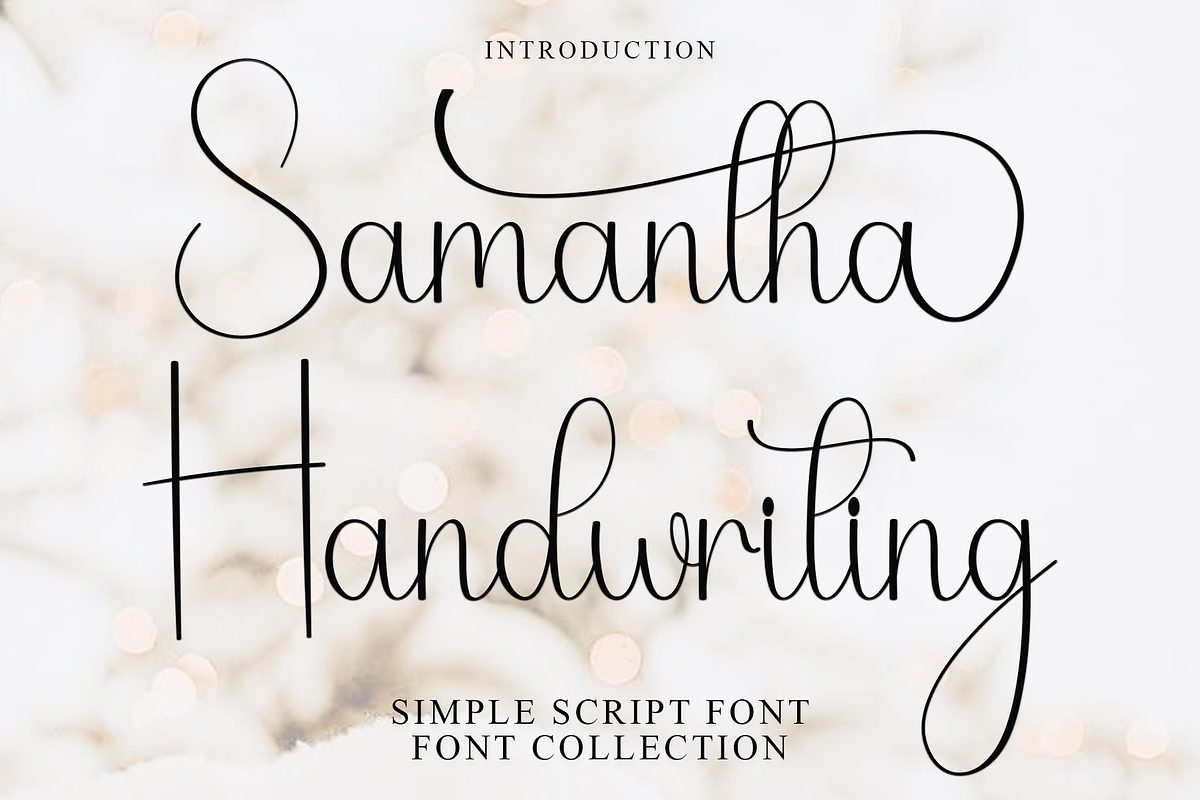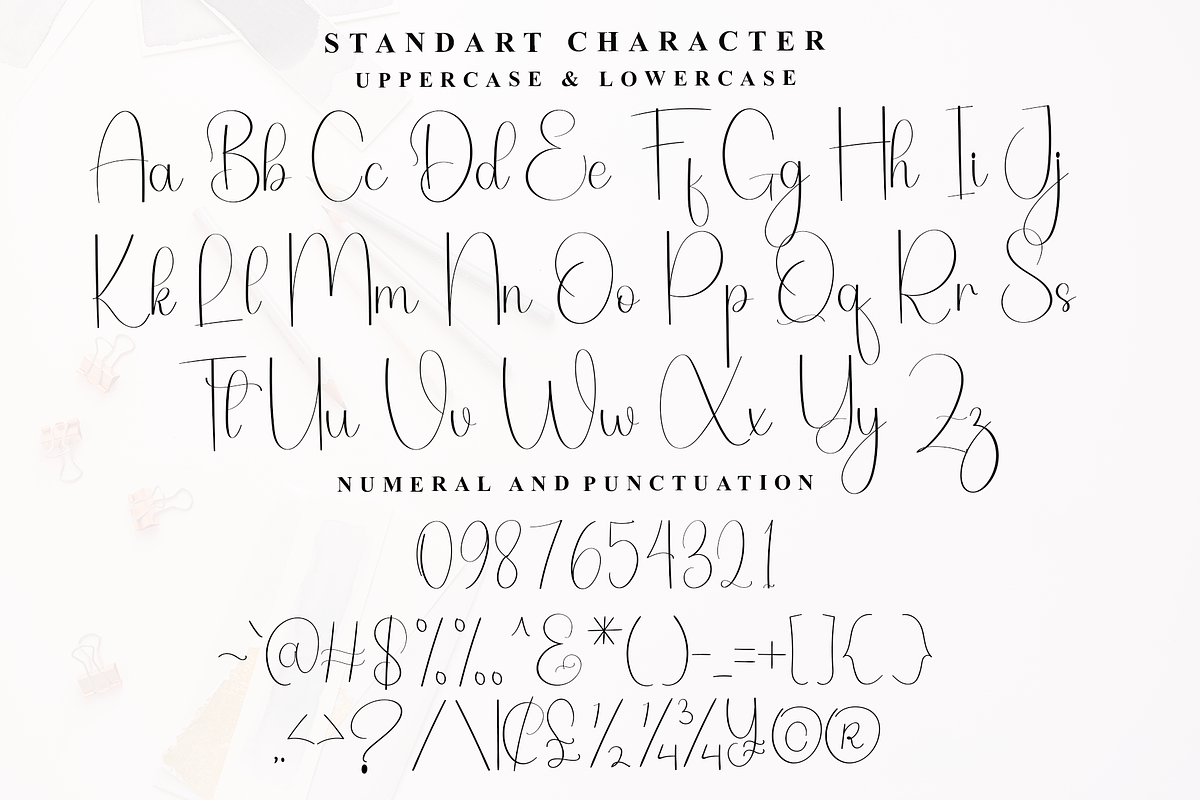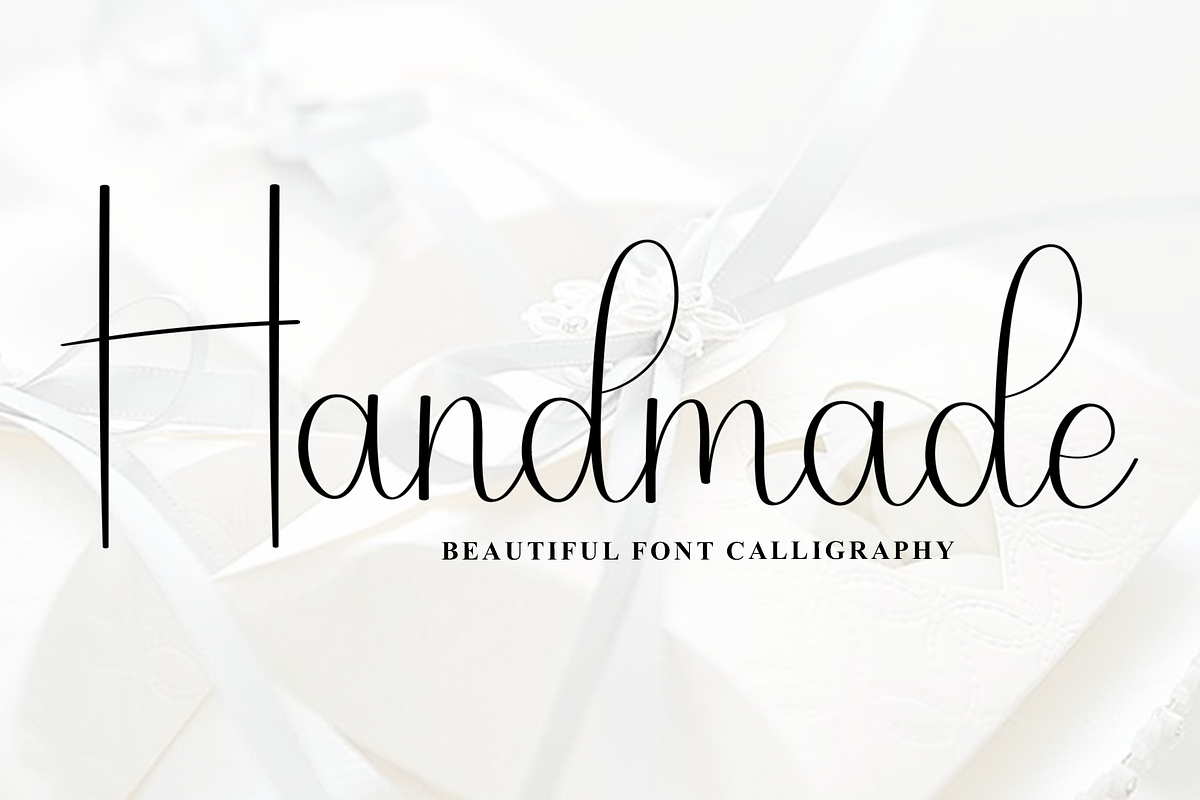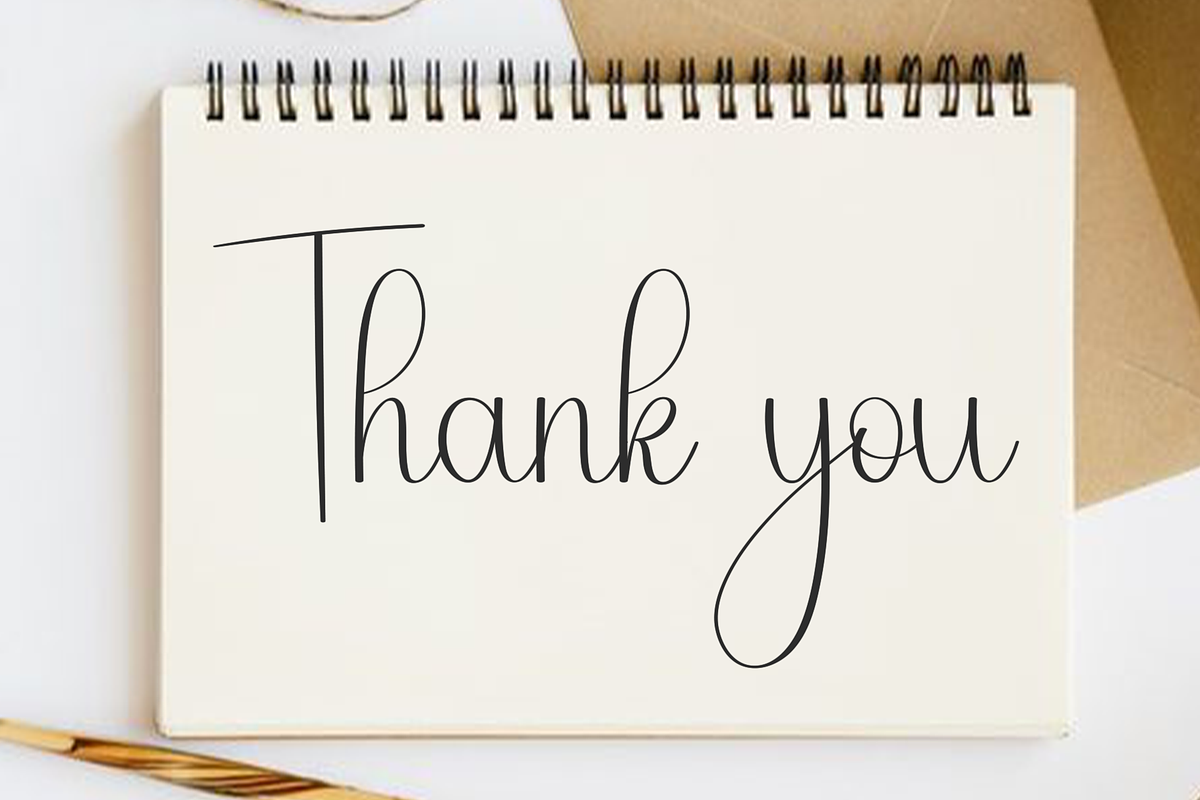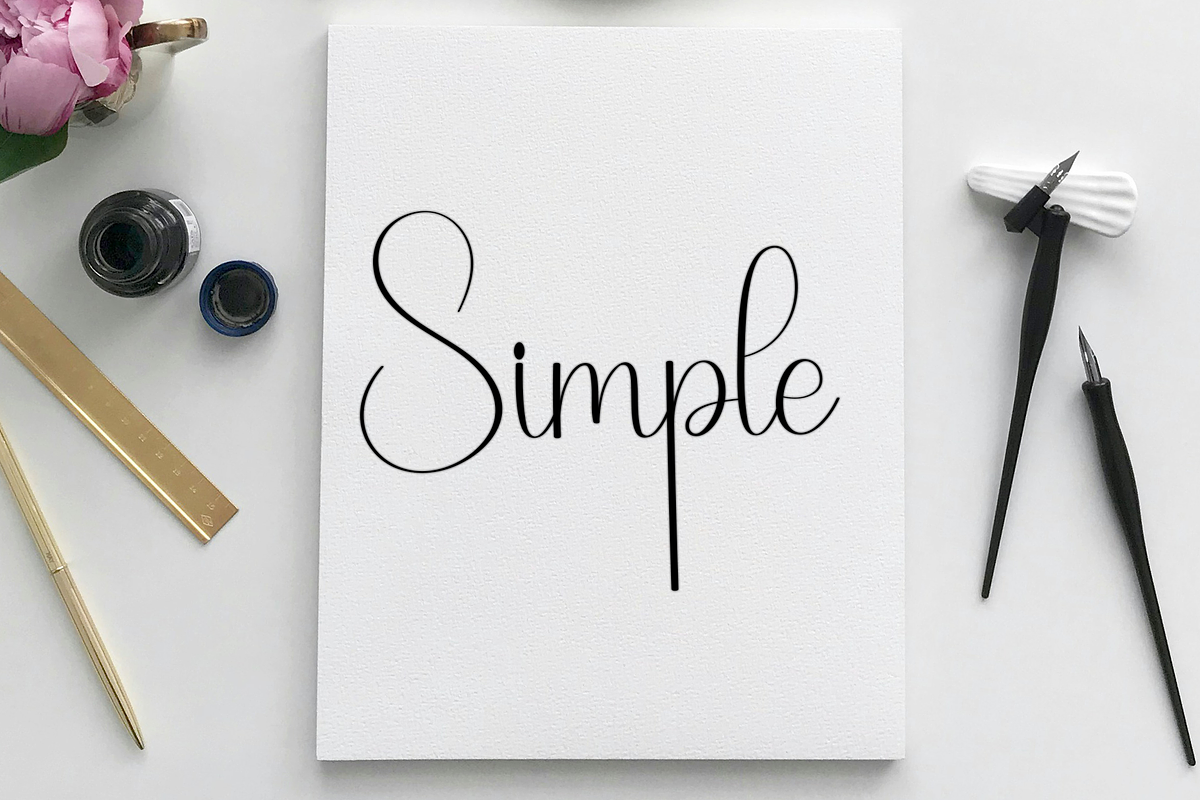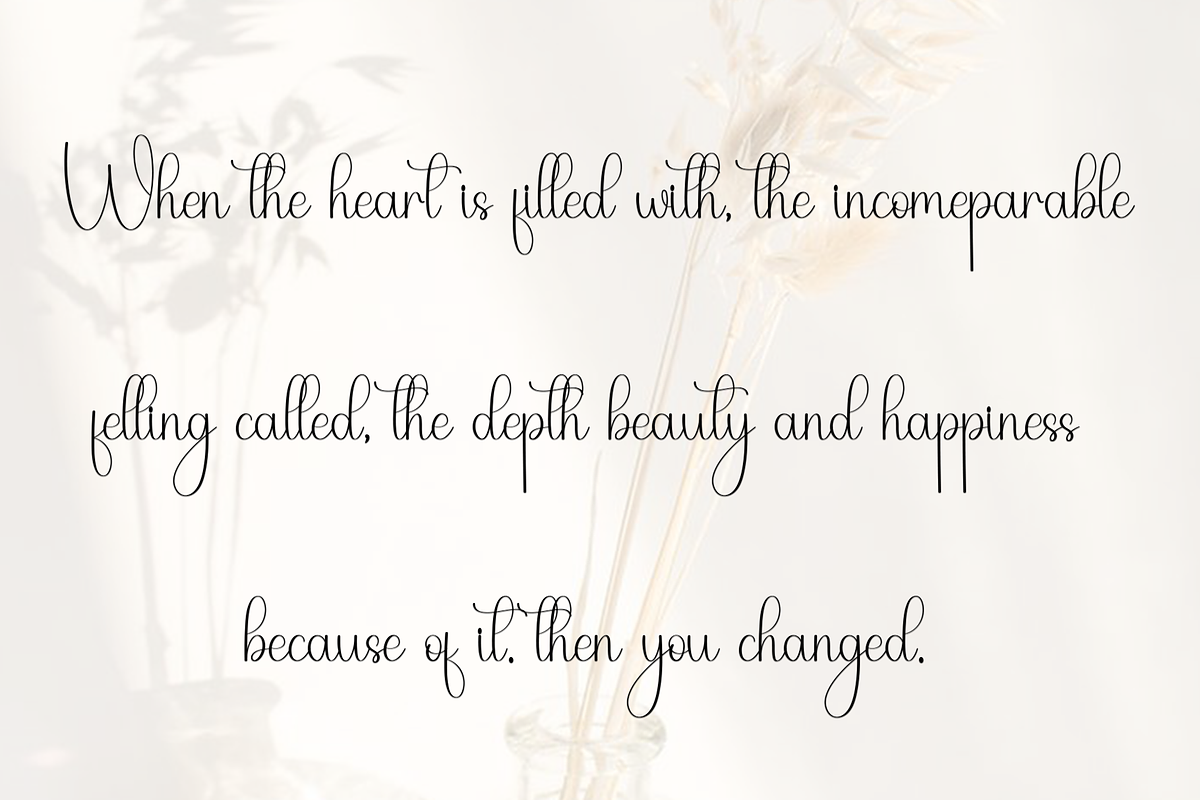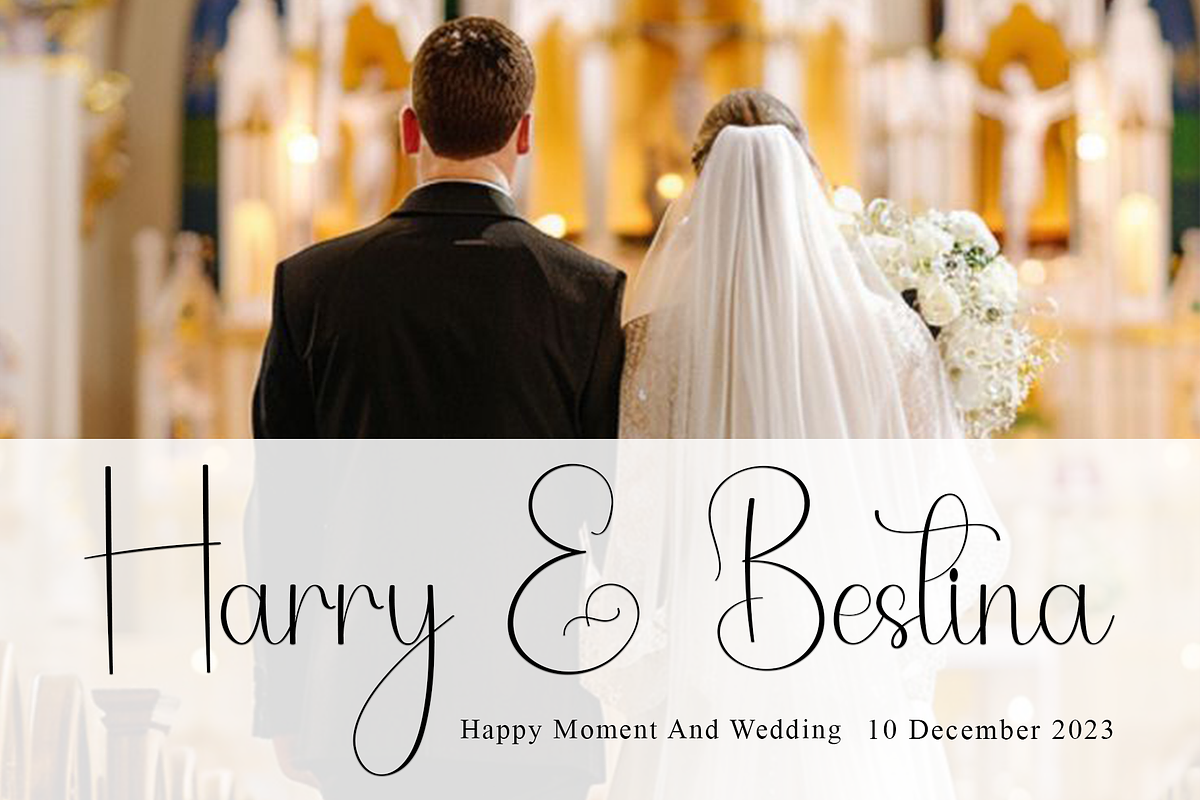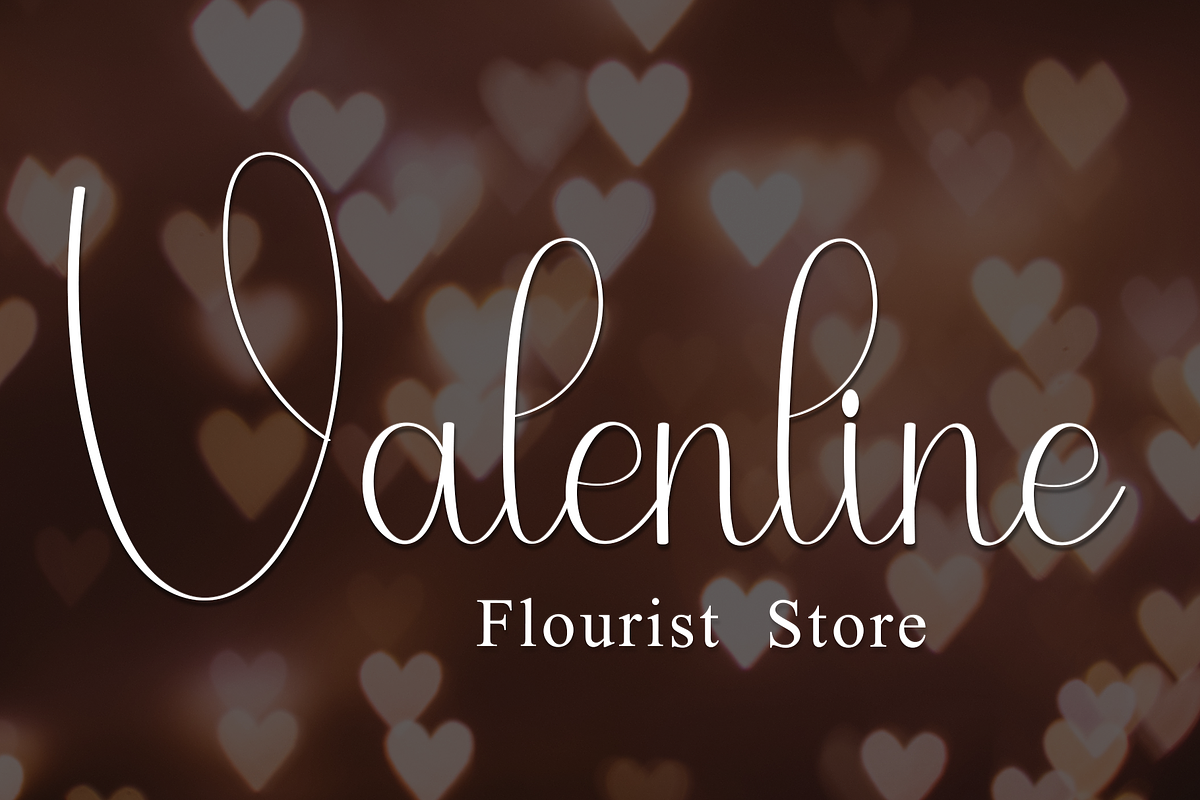
Samantha Handwriting
Samantha Handwriting is a festive and merry typeface that captures the spirit of the holiday season. With its decorative elements and whimsical flair, it adds a touch of enchantment to your designs. Perfect for greeting cards, gift tags, and holiday-themed projects, this font brings a cheerful and nostalgic ambiance to your words. Let your typography shine with the magic of Beautiful Font!